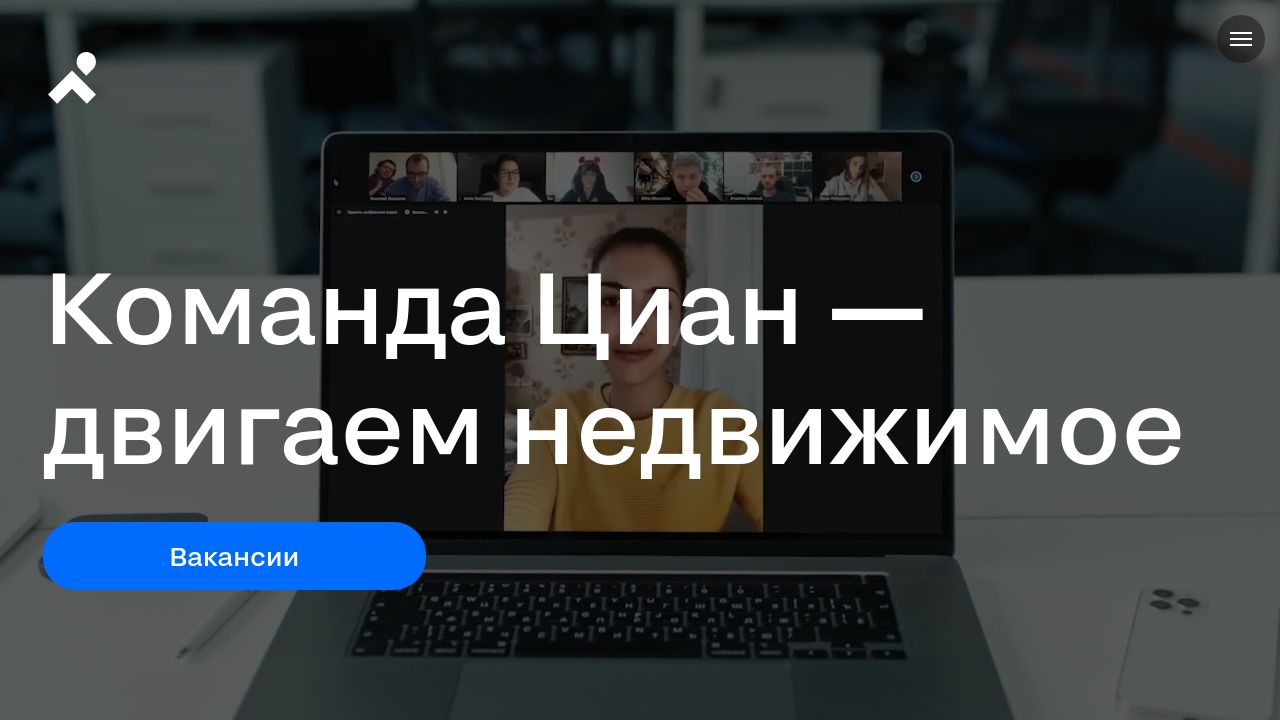
What fonts does Hr use?
Cian Dream Team, found at hr.cian.tech, utilizes a distinctive blend of fonts that reflect its role in the tech industry. The combination of Arial and Roboto provides a functional base, while the custom fonts NEW and Tera add unique character. This thoughtful typography choice speaks to their innovative approach, appealing to a tech-savvy audience looking for clarity and a hint of creativity in their digital experiences.
Frequently asked questions about Hr.cian.tech's fonts
What fonts does hr.cian.tech use?
hr.cian.tech employs Arial, Roboto, NEW, and Tera as its primary fonts, ensuring a versatile and engaging visual experience.
How does Arial compare to Roboto on hr.cian.tech?
Arial offers a classic sans-serif look, while Roboto provides a more contemporary feel with its geometric shapes, making them both effective for readability.
What are the weights of the fonts on hr.cian.tech?
hr.cian.tech uses Arial and Roboto in weight 400, NEW in weight 300, and Tera in weight 400, creating a balanced typographic hierarchy.
What fallback font does hr.cian.tech use?
If the primary fonts fail to load, hr.cian.tech defaults to Helvetica, ensuring a consistent and familiar look across devices.